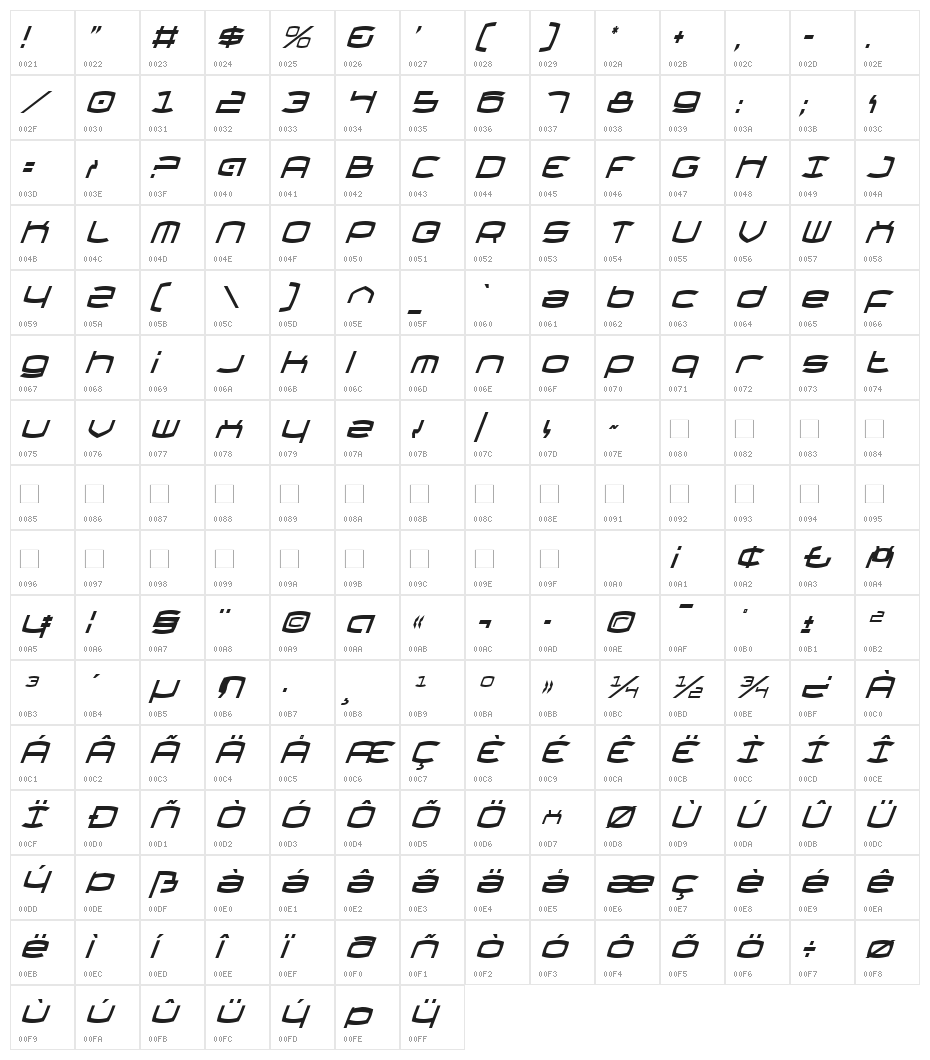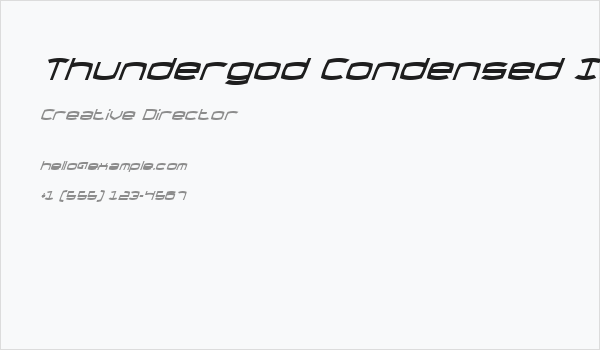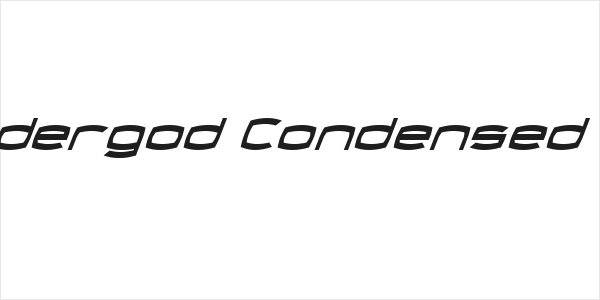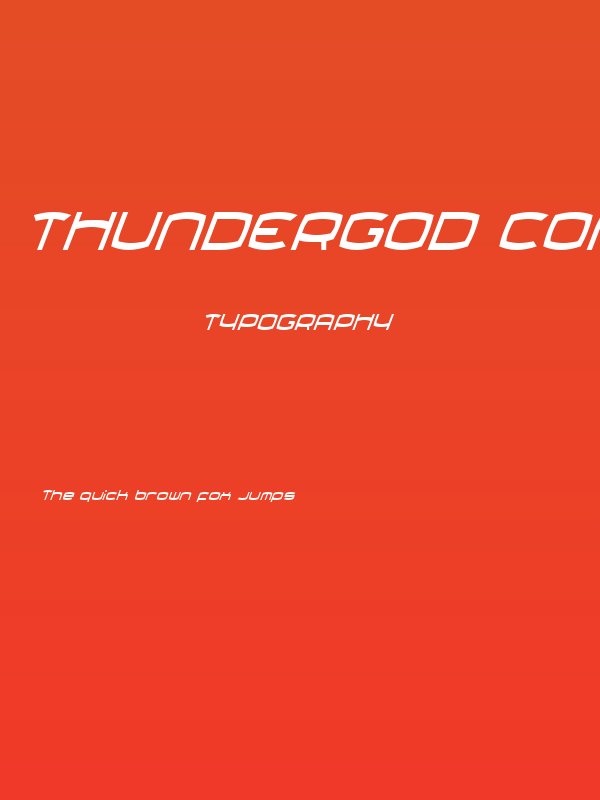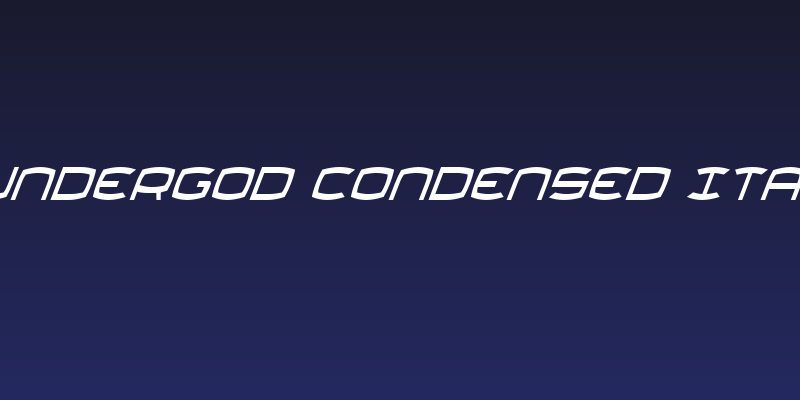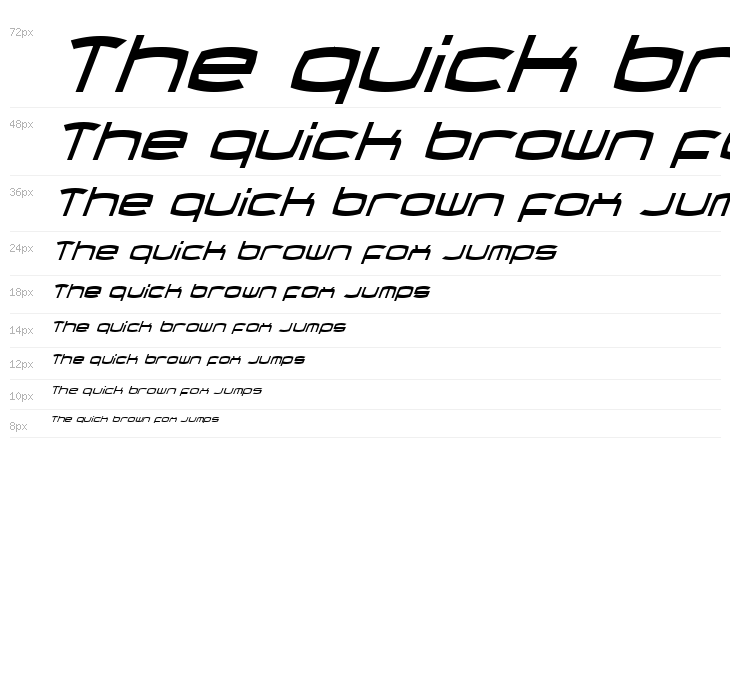
Thundergod Condensed Italic Font
Thundergod Condensed Italic Description
This font features a dynamic and futuristic design, characterized by its sharp angles and sleek, italicized form. The condensed nature of the typeface gives it a compact appearance, making it ideal for space-saving applications. Each letter is crafted with precision, showcasing a modern aesthetic that is both bold and stylish. The uppercase and lowercase letters maintain a consistent slant, enhancing the sense of motion and speed. Numbers and special characters are designed to complement the overall style, ensuring uniformity across all text elements. The font's unique structure makes it suitable for projects that require a contemporary and edgy look.
| Use Case | Logos, Headlines |
| Proposed Projects | Ideal for branding, sports team logos, video game titles, and tech-related projects. |